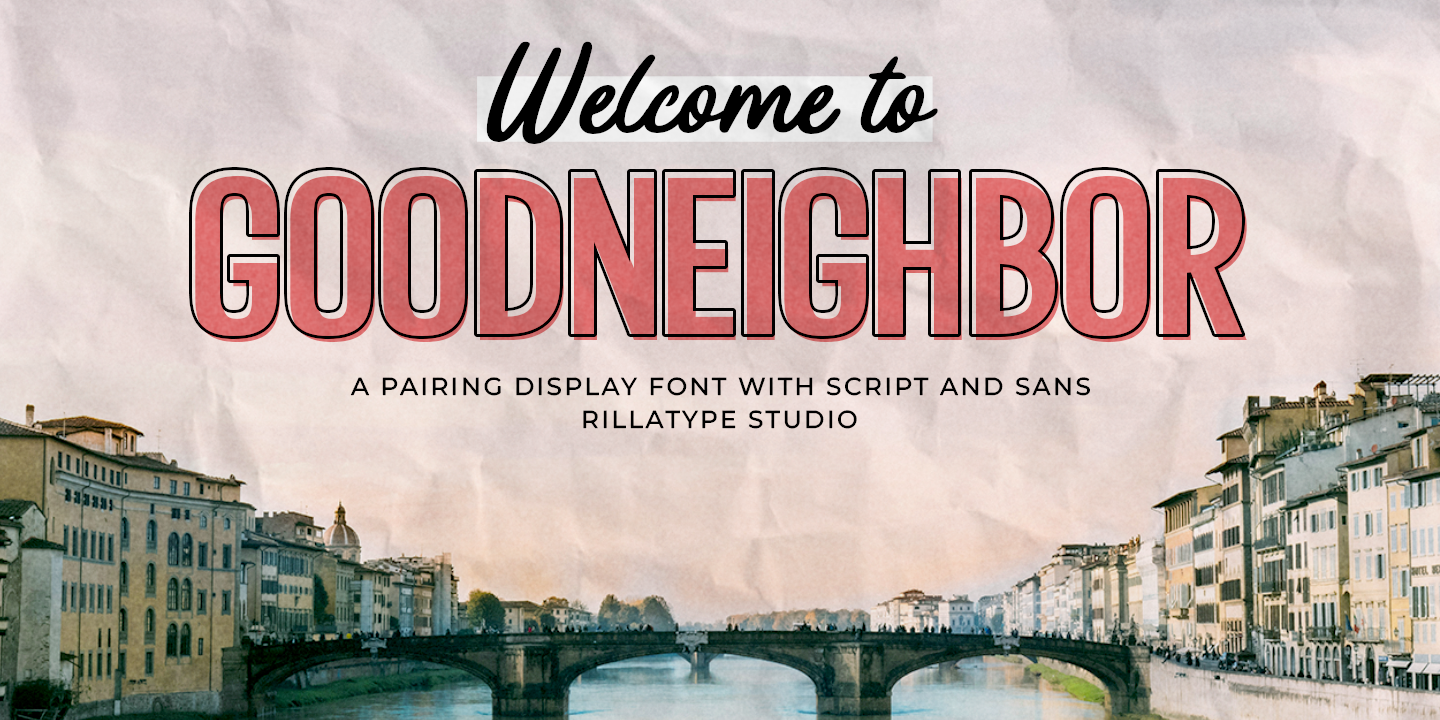
RT Goodneighbor Font is a warm and wonderfully inviting typeface, perfectly suited for projects that aim to evoke a sense of community, trustworthiness, and a comforting, classic charm. Imagine it gracing the branding for a local bakery or a community market, adding a rustic yet refined touch to handcrafted product labels, or bringing a personal and inviting personality to neighborhood event posters. It's also an excellent choice for crafting distinctive menus for family-style restaurants, designing unique signage for small businesses, or infusing blog headers and social media posts with a genuine, welcoming vibe. If you're looking to convey sincerity, quality, and an undeniable sense of friendly appeal, RT Goodneighbor Font is an outstanding selection.
What makes RT Goodneighbor Font so exciting? It’s its unique ability to combine a casual, often slightly irregular or hand-drawn aesthetic with impressive legibility, making it both visually appealing and highly practical for diverse applications. This font often features soft curves, subtle imperfections, and a friendly, unpretentious charm that gives it an immediate sense of warmth and accessibility, reminiscent of hand-painted signs from a beloved local shop. Despite its informal character, RT Goodneighbor Font is meticulously designed to maintain excellent readability, ensuring your message is communicated clearly and with a warm, inviting tone. Designers will appreciate its versatility in creating designs that feel both intimately personal and professionally charming, making it a go-to choice for brands and projects that aim to connect with their audience through themes of authenticity, community, and a welcoming atmosphere.
The RT Goodneighbor Font family is typically designed to showcase a singular, distinctive display or script style that perfectly encapsulates its unique appeal. While it may not feature extensive weight variations like a traditional text font, its strength lies in its inherent personality and often includes stylistic alternates or simple ligatures that enhance its cheerful aesthetic. These subtle details allow RT Goodneighbor Font to maintain its cohesive and heartwarming look across various applications, from inviting e-commerce banners for local businesses to charming personal correspondence. Discover the delightful possibilities with RT Goodneighbor Font Free Download and infuse your designs with an irresistible, comforting charm.